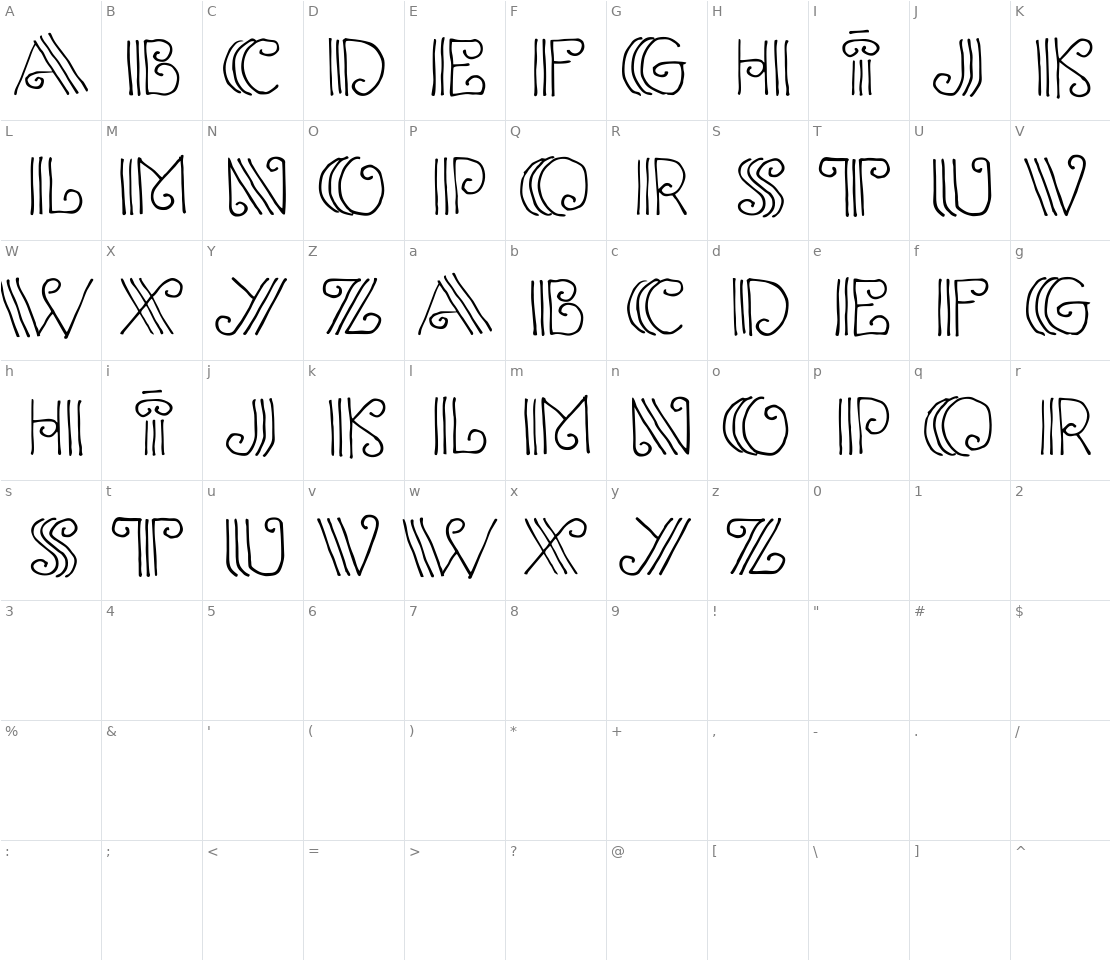
Columnion
Columnion is a tall, outline-only display face by Florin Florea with an Art Deco sensibility running through every letterform. The ornamental detailing and elegant vertical proportions recall the kind of lettering you'd find on a 1920s theater marquee or luxury hotel facade. Strictly a headline face, built for posters, invitations, and branding where architectural glamour is the point.